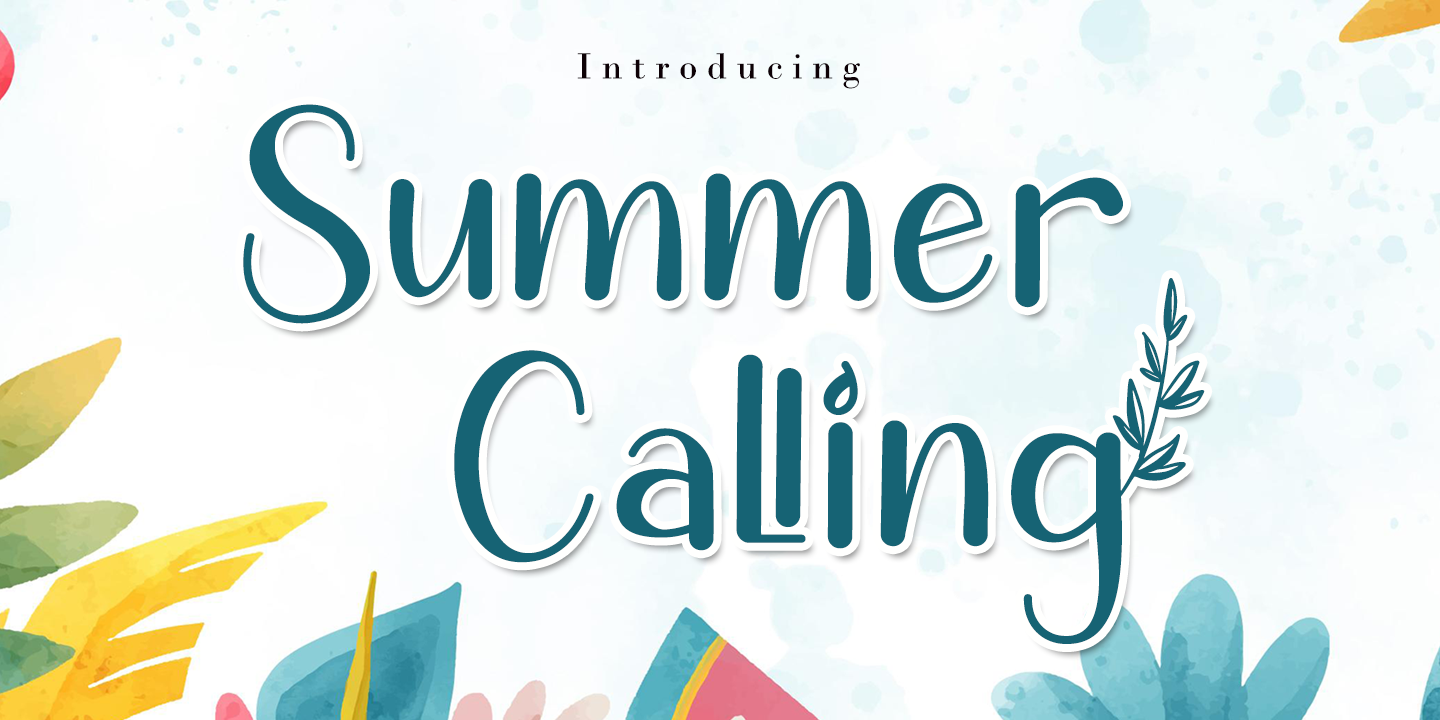
Summer Calling Font is perfect for tropical vacation promotions, beach resort marketing, summer festival posters, outdoor adventure campaigns, poolside bar signage, seasonal fashion branding, sunshine-themed events, and warm weather lifestyle promotions.
Summer Calling Font is exciting because it captures the irresistible allure and vibrant energy of summer adventures through its warm character design that embodies the carefree spirit of sunny days and the magnetic pull of seasonal escapism. Its radiant styling and seasonal appeal make it the perfect choice for brands that want to communicate freedom, warmth, and the transformative power of summer experiences.
Summer Calling Font family includes multiple sunny variations: Summer Calling Light, Summer Calling Regular, Summer Calling Bold, Summer Calling Breeze, Summer Calling Waves, and Summer Calling Sunshine, along with tropical decorative elements and summer symbols, providing designers with comprehensive tools for creating authentic seasonal and vacation-themed brand experiences.
When exploring seasonal typography solutions, Summer Calling Font Free Download stands out as the ultimate choice for designers working on summer and vacation projects that require genuine seasonal sophistication and warm appeal. This vibrant typeface embodies the essence of summer calling while offering the versatility needed for modern tourism marketing and seasonal lifestyle communications. The font's sunny character and vacation resonance create immediate connections with audiences who crave summer adventures and warm weather experiences.
Tourism professionals consistently turn to Summer Calling Font for projects requiring authentic seasonal sophistication and powerful vacation appeal. Its carefully crafted letterforms feature summer-inspired influences that work exceptionally well in both large-scale resort destination signage and intimate vacation package materials. The font's ability to convey warmth and seasonal excitement while maintaining strong brand recognition makes it invaluable for comprehensive identity systems in the tourism, seasonal hospitality, and summer lifestyle sectors.
Whether you're developing vacation resort identities, creating summer event marketing materials, or designing seasonal campaign promotions, Summer Calling Font delivers the authentic summer character and warm appeal that resonates with audiences who answer the call of summer adventures and seasonal escapes. Its seasonal significance and vibrant design ensure your projects capture the magnetic allure of summer calling while maintaining contemporary professional standards that attract modern travelers and summer experience seekers.